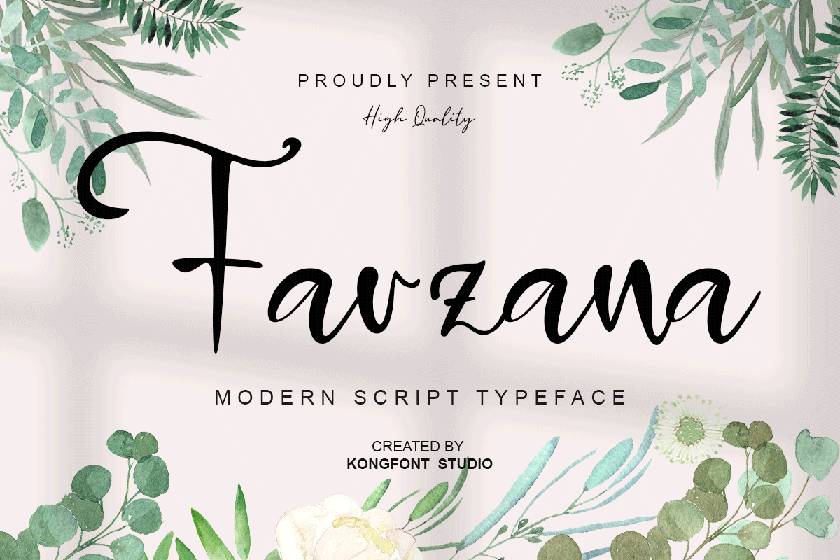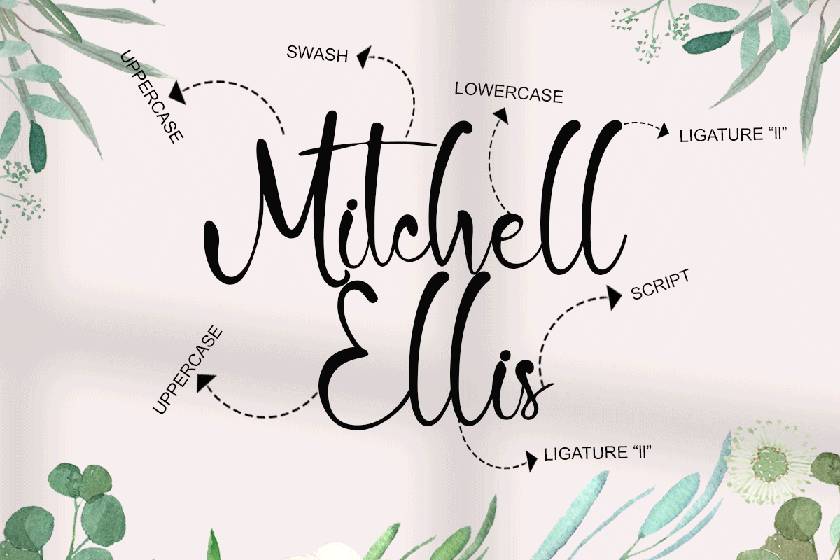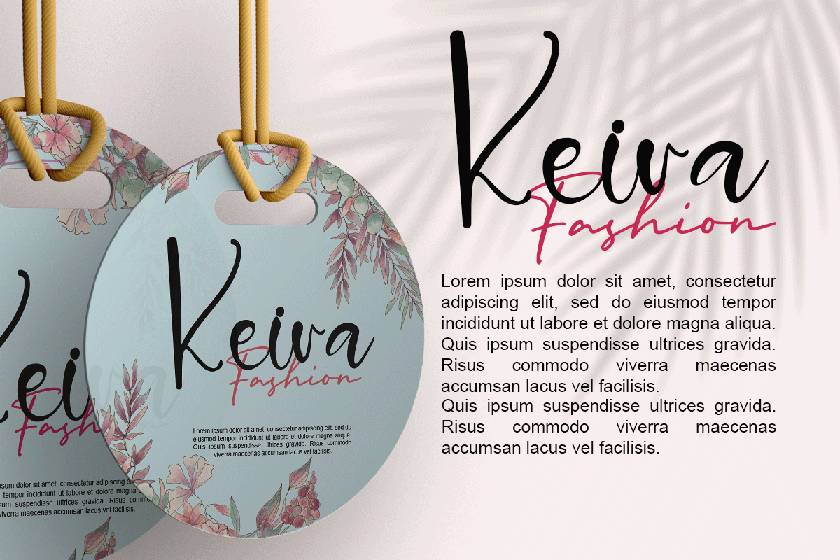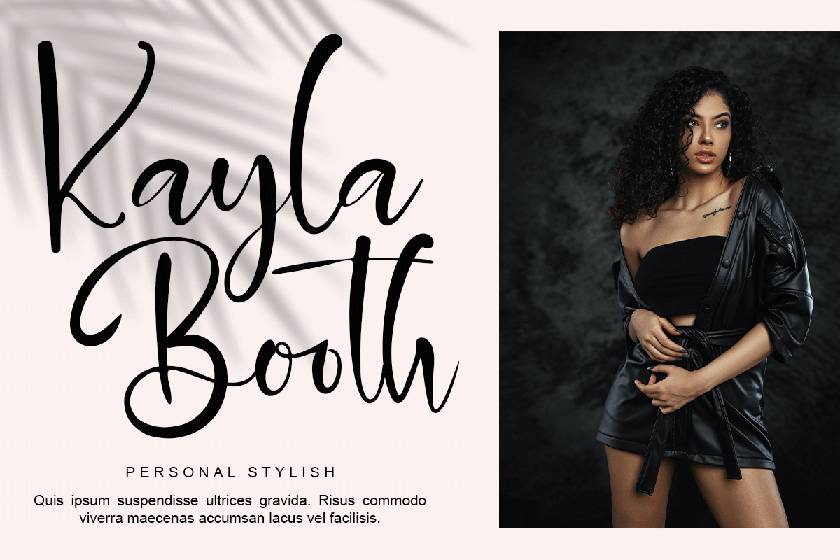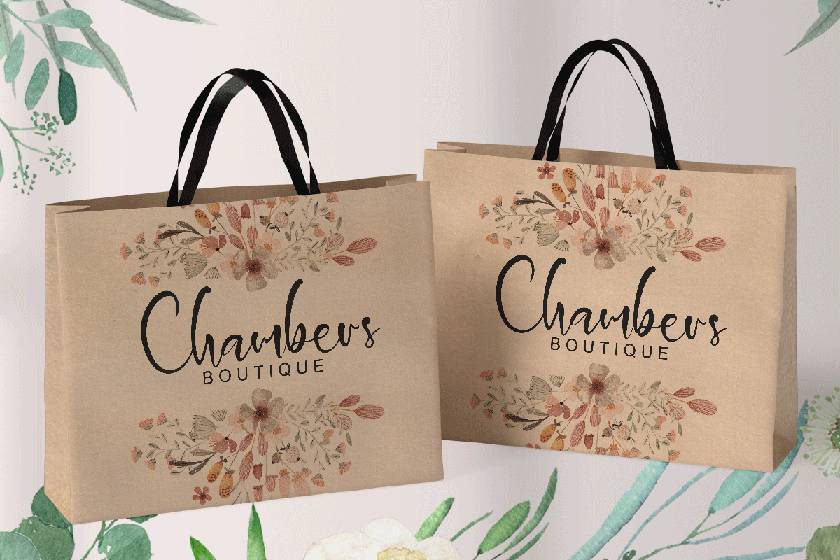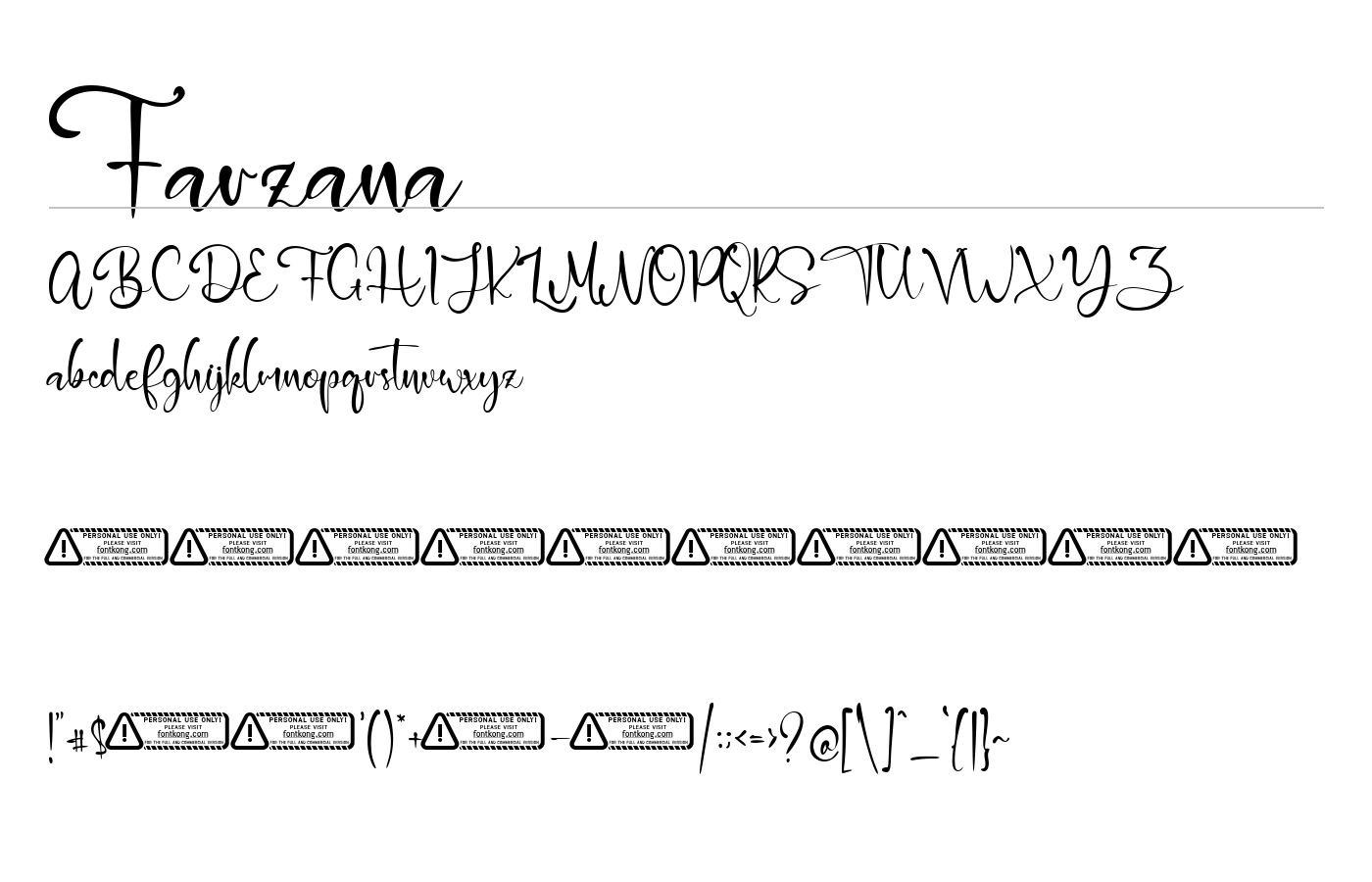
Farzana is a delicate and elegant script font with slender, flowing letterforms that evoke a handcrafted, artistic feel. Its graceful curves and playful swashes make it perfect for feminine branding, invitations, and creative projects where a personal and stylish touch is desired. This font shines best in decorative headlines and logos that benefit from its charming and sophisticated personality.
Farzana Font
About Farzana Font